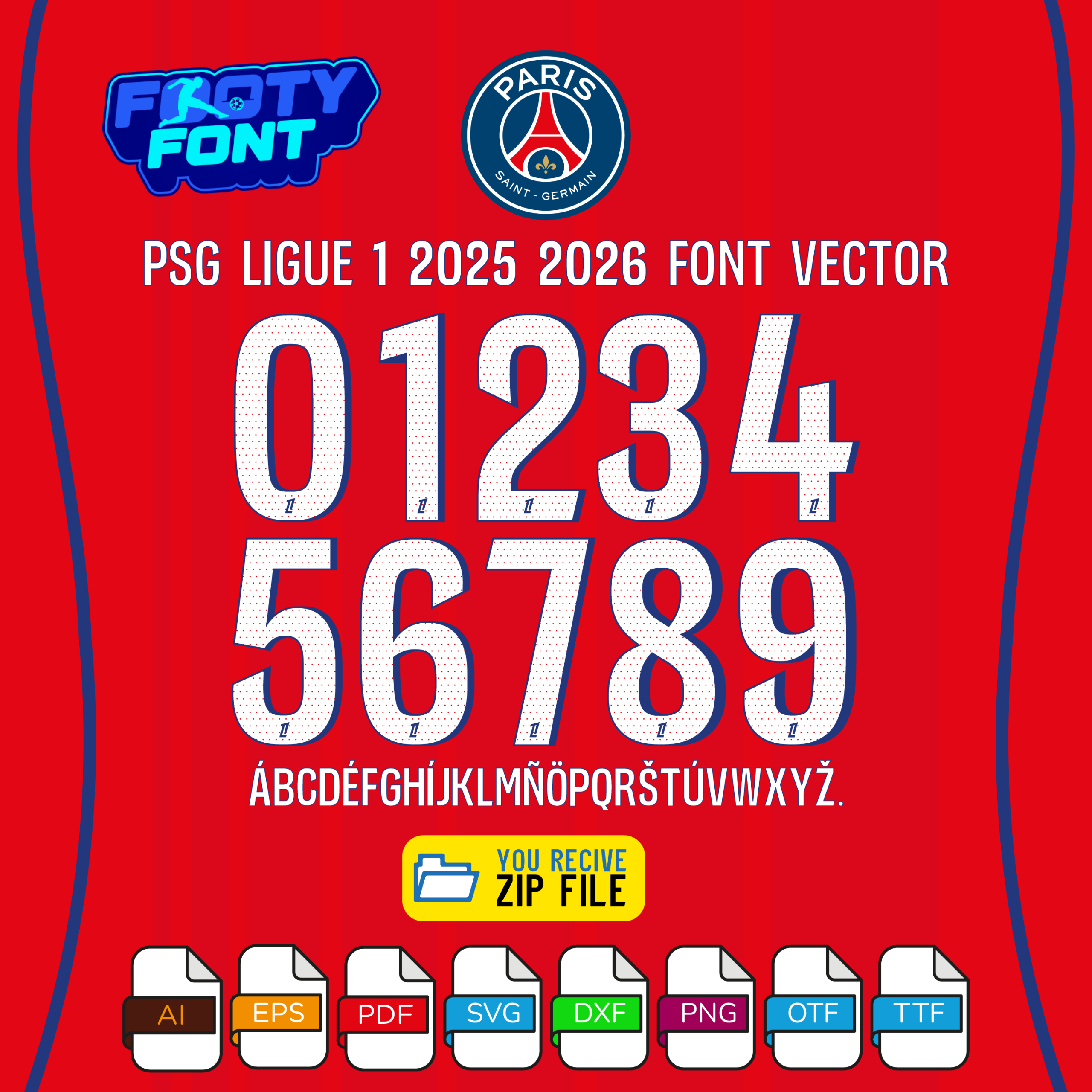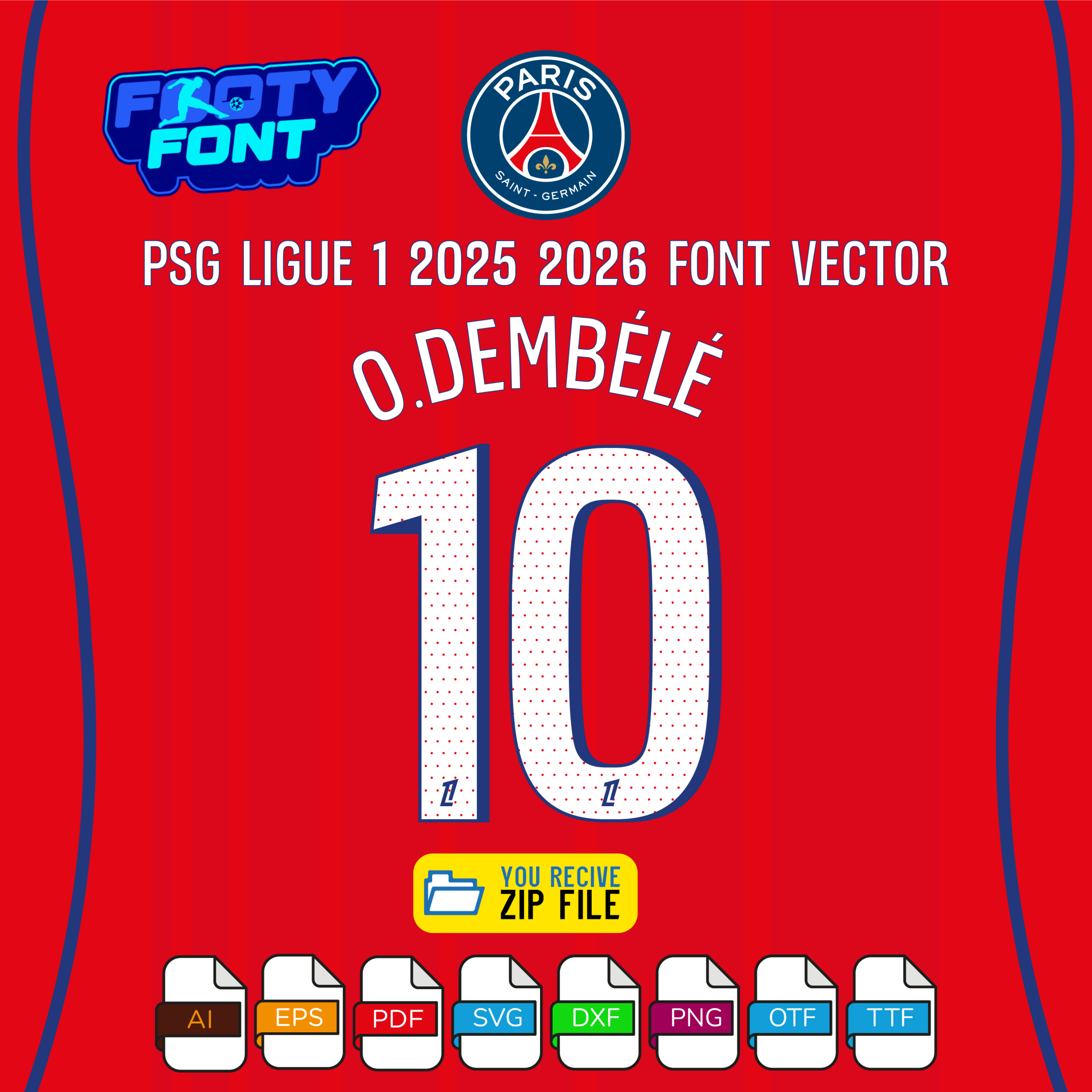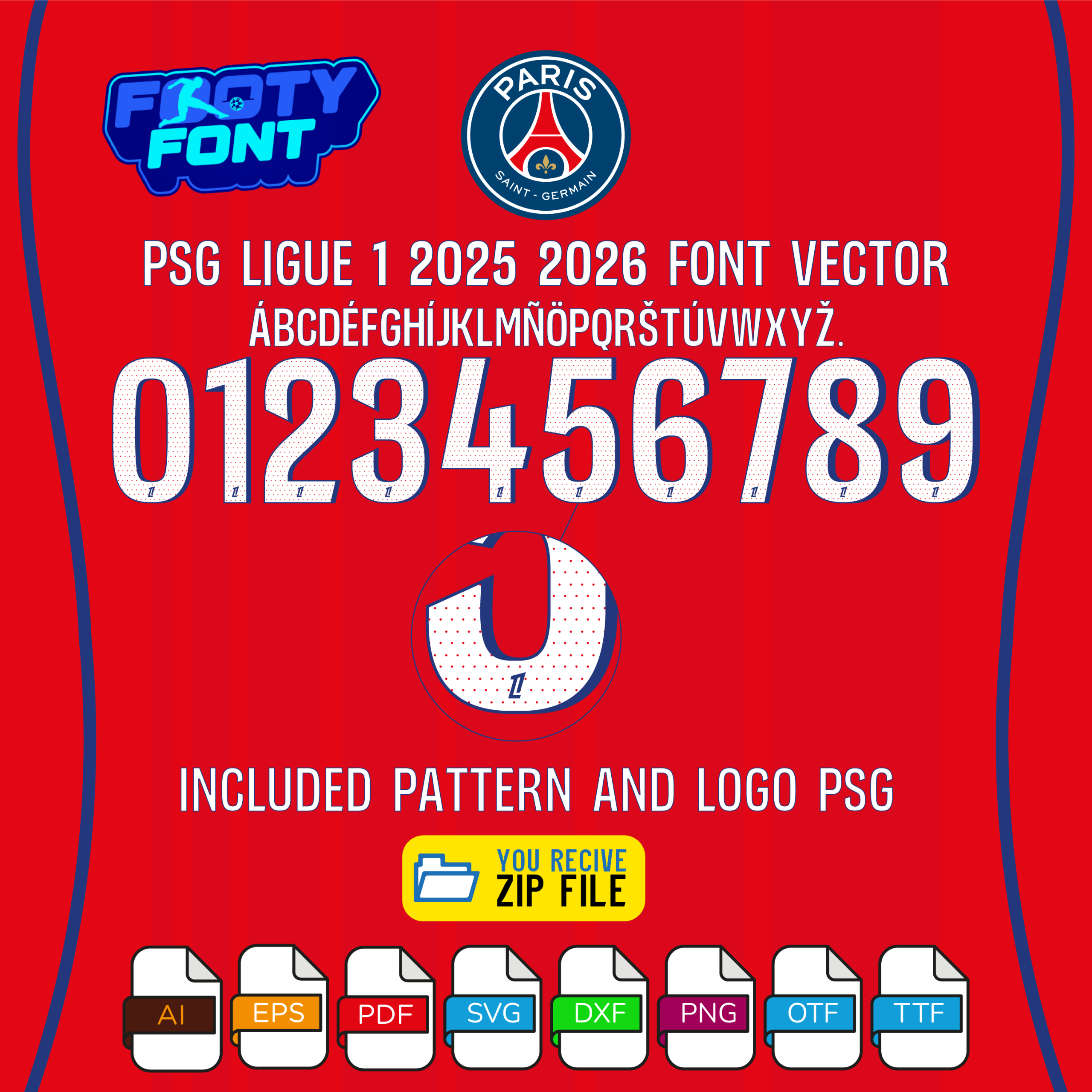
About the PSG 2025-2026 Football Font
Capture the style of the world’s most fashionable club with this font, inspired by the Paris Saint-Germain 2025-2026 Ligue 1 third kit. This is a high-quality typeface designed to replicate the look of the bold alternate jersey, a symbol of the unique culture where Paris, fashion, and football collide.
This font captures the style worn by the global superstars at the Parc des Princes like Ousmane Dembélé, Bradley barcola, and Khvicha Kvaratskhelia. It’s essential for designers, streetwear fans, and supporters looking to create custom merchandise for personal use, digital art, or posters that reflect the “Ici c’est Paris” mentality.
Use this font to bring the Parisian style into your designs—whether for custom jersey graphics, fan merchandise, posters, or social media content.
Fan-made PSG 2025-2026 Ligue 1 third kit font showing the complete alphabet and numbers in white on a red background.
PSG Font Ligue 1 2025-2026 Third Kit